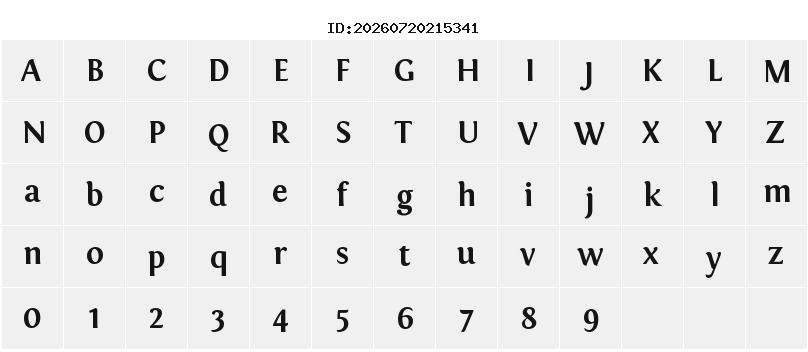
Fontin Preview
• Font Name: Fontin
• Full Font Name: Fontin Bold
About Fontin.ttf
Fontin.ttf is a modern, elegant sans-serif font designed for ultimate readability and visual harmony. Perfect for branding, headlines, web design, and print materials.